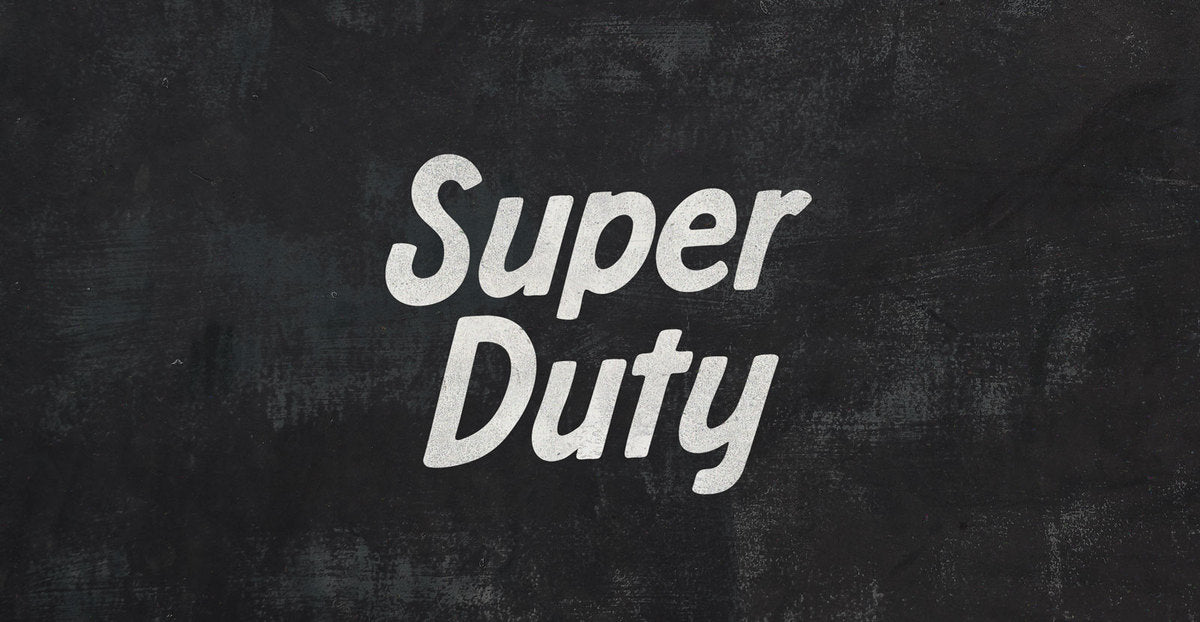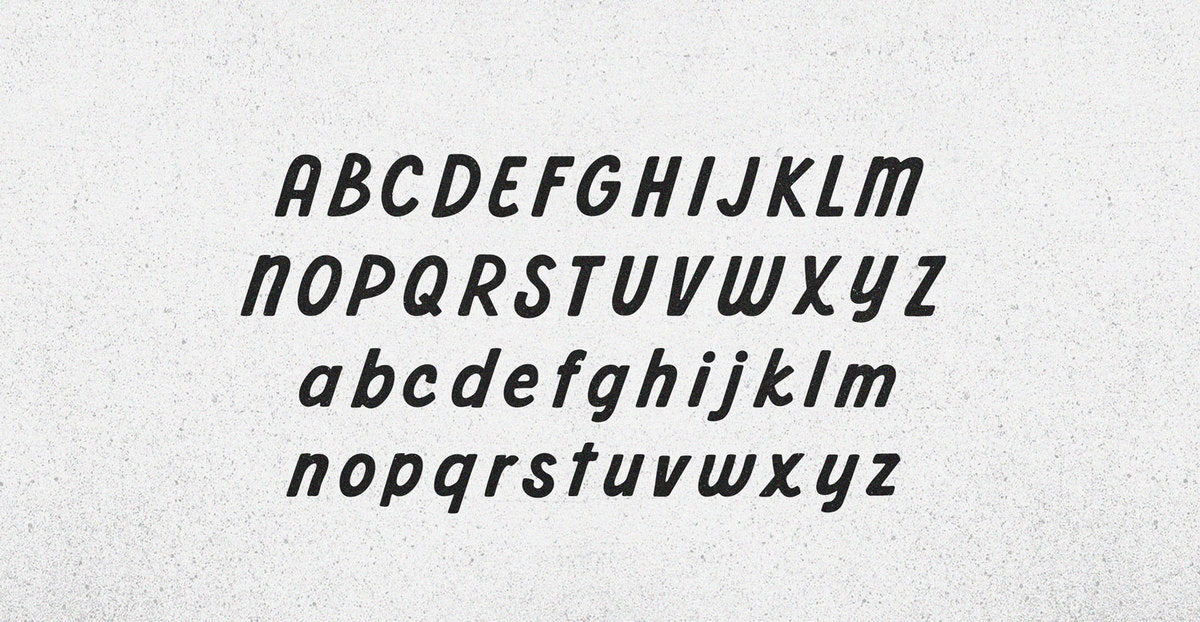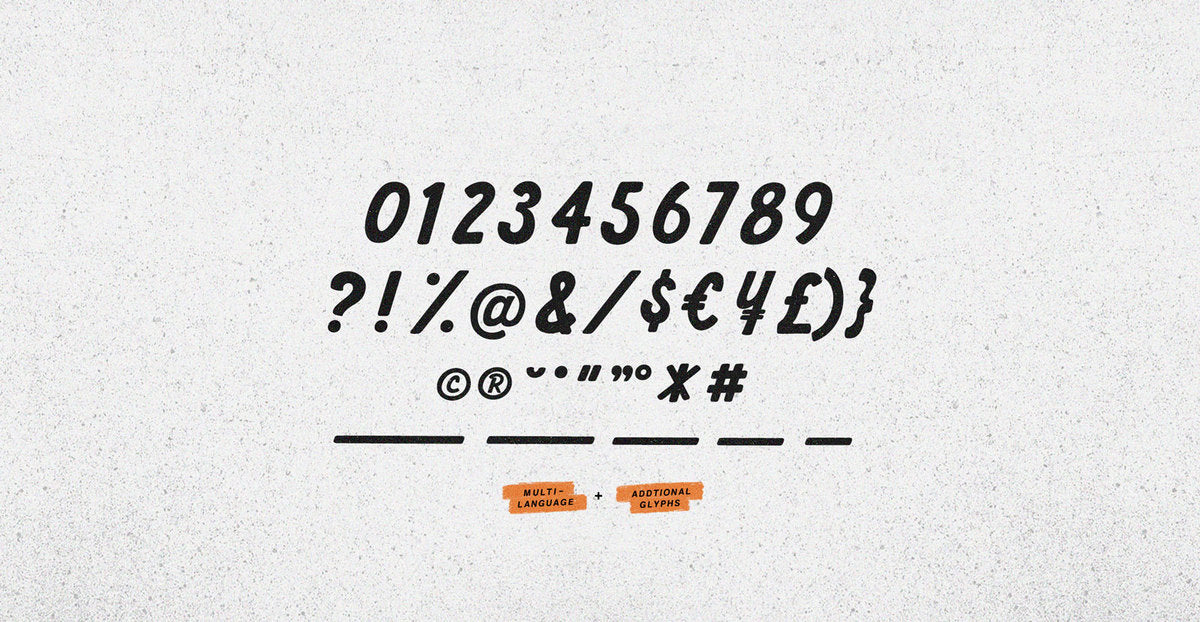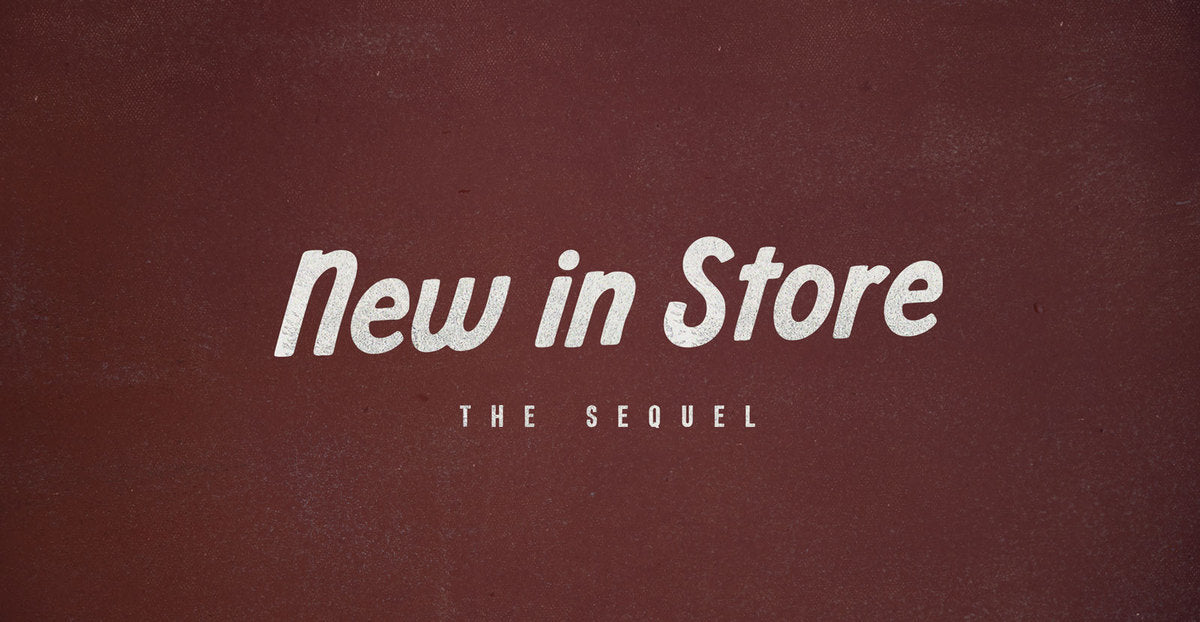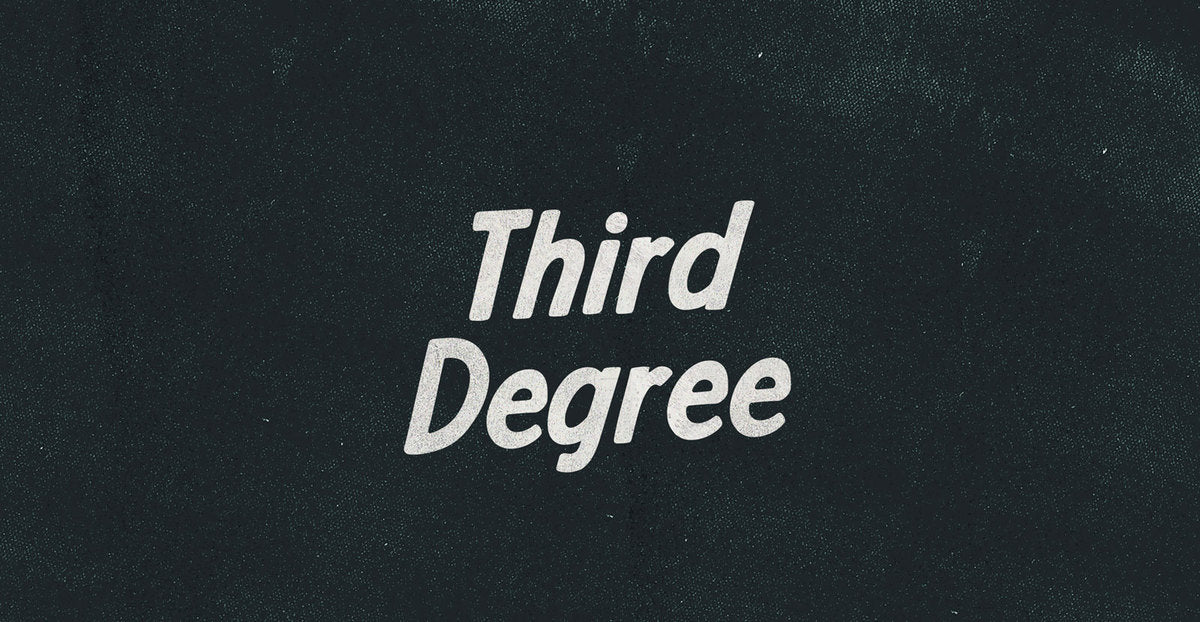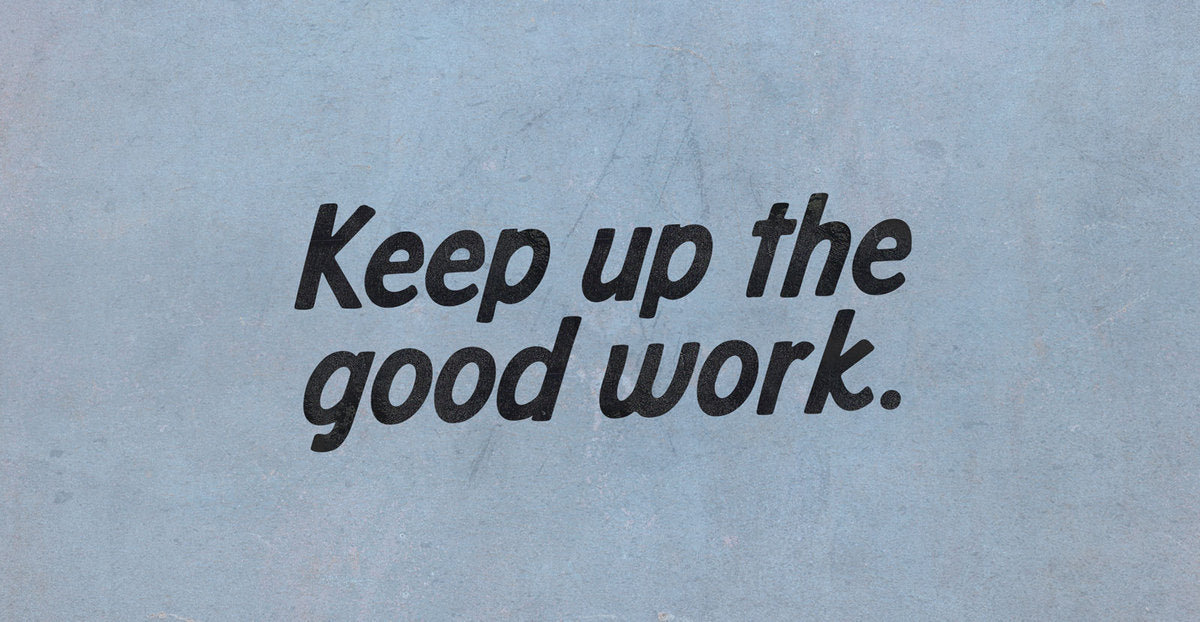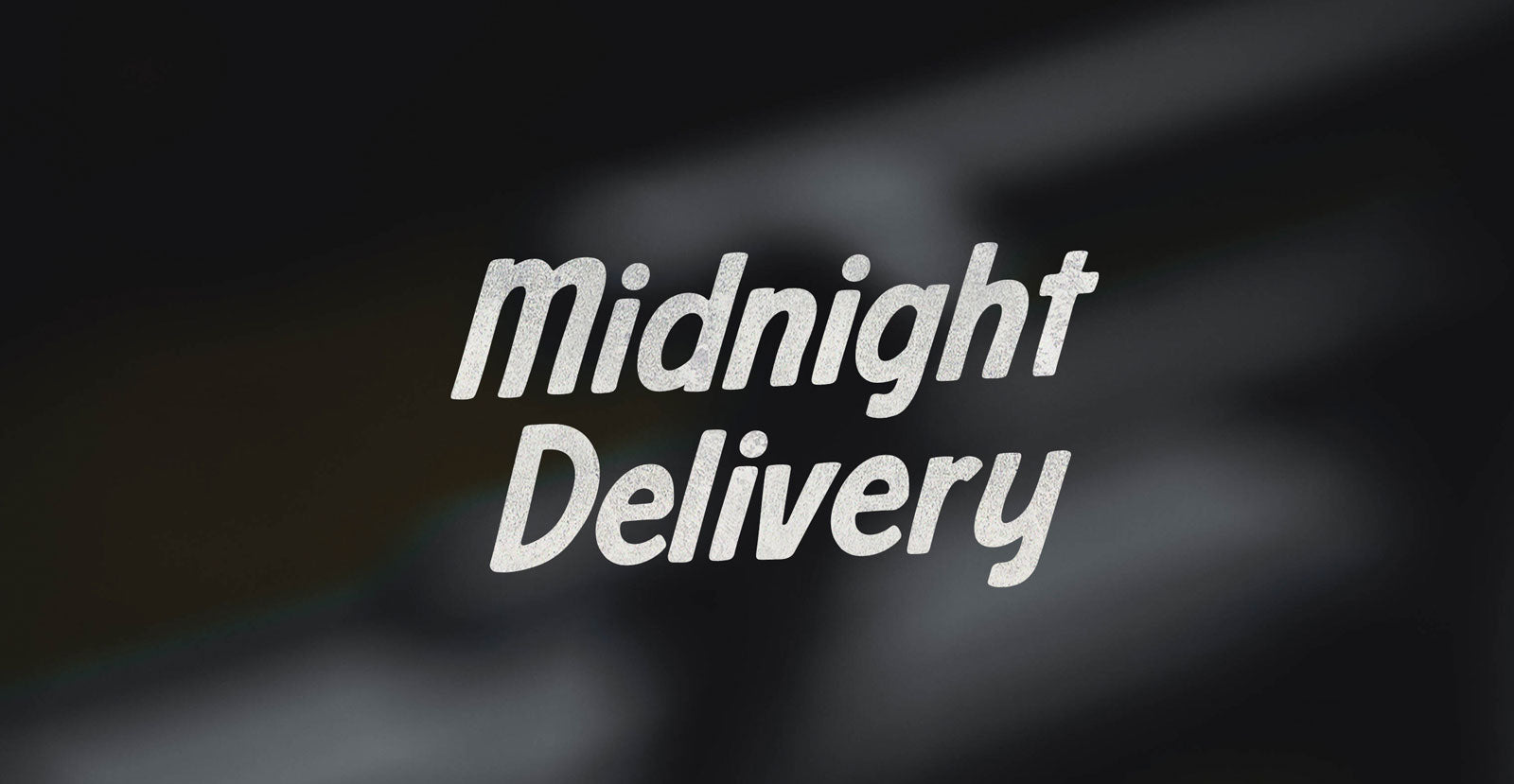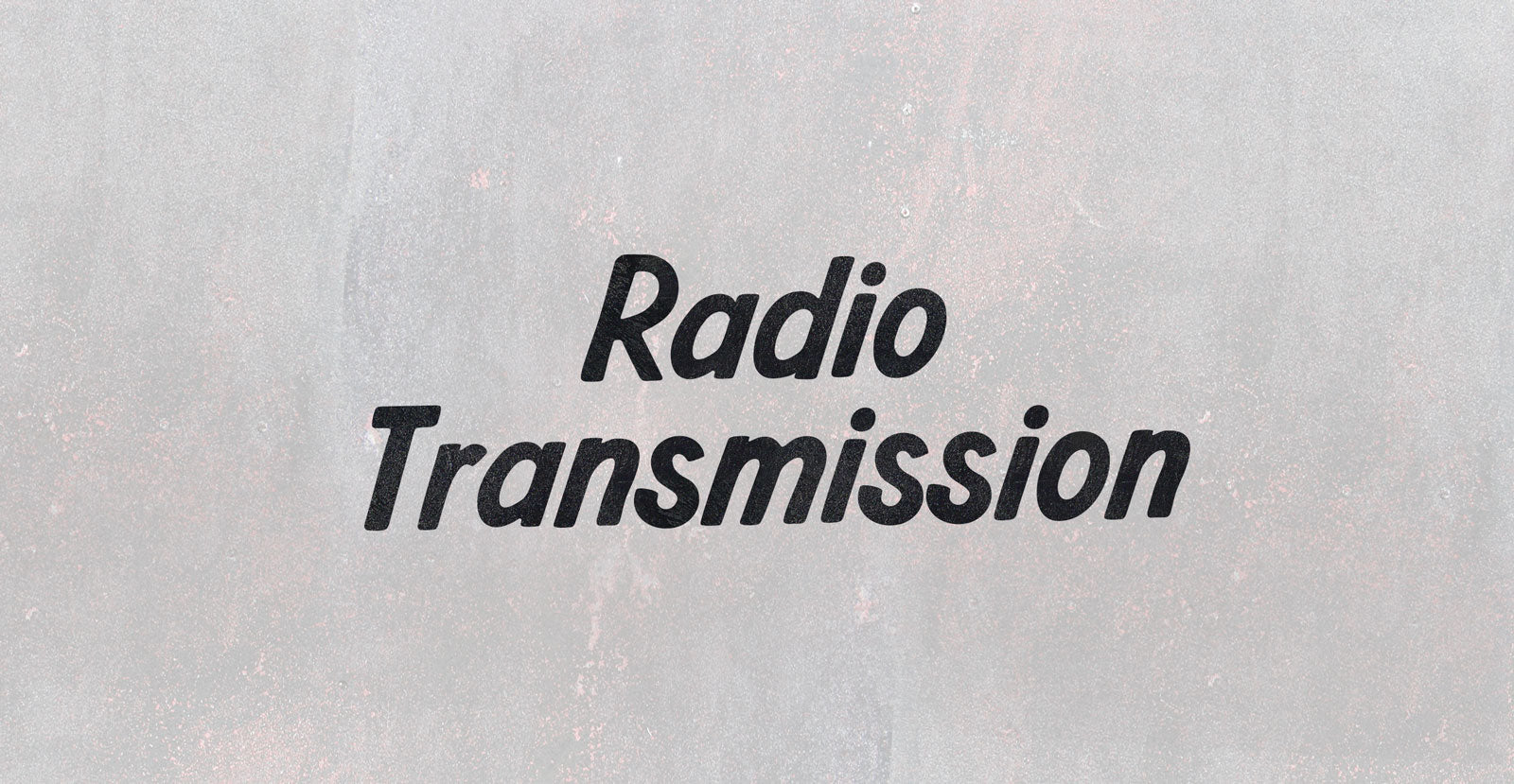
Super Duty
Handwritten Sans Serif Font
We all pay the day away, clock the clock in the face on Super Duty. It runs out weeping minute tears. We used to have problems to overcome and a toolbox full of obligation. Now problems come over like, “Got anything to eat?” Yep, there’s trail mix in the toolbox. Tuck in.